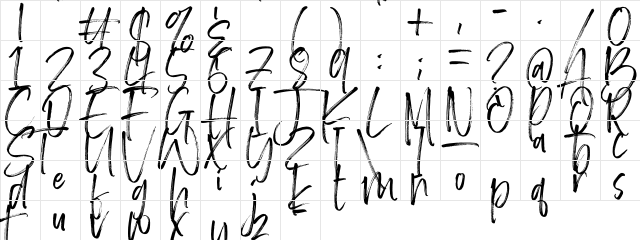
Brother Home Demo Version Regular Font Preview
Brother Home Demo Version Regular
Brother Home Demo Version Regular Font Details
Design Context for Brother Home Demo Version Typeface
Brother Home Demo Version is a composed and adaptable typeface that performs quietly and consistently across a wide range of design contexts.